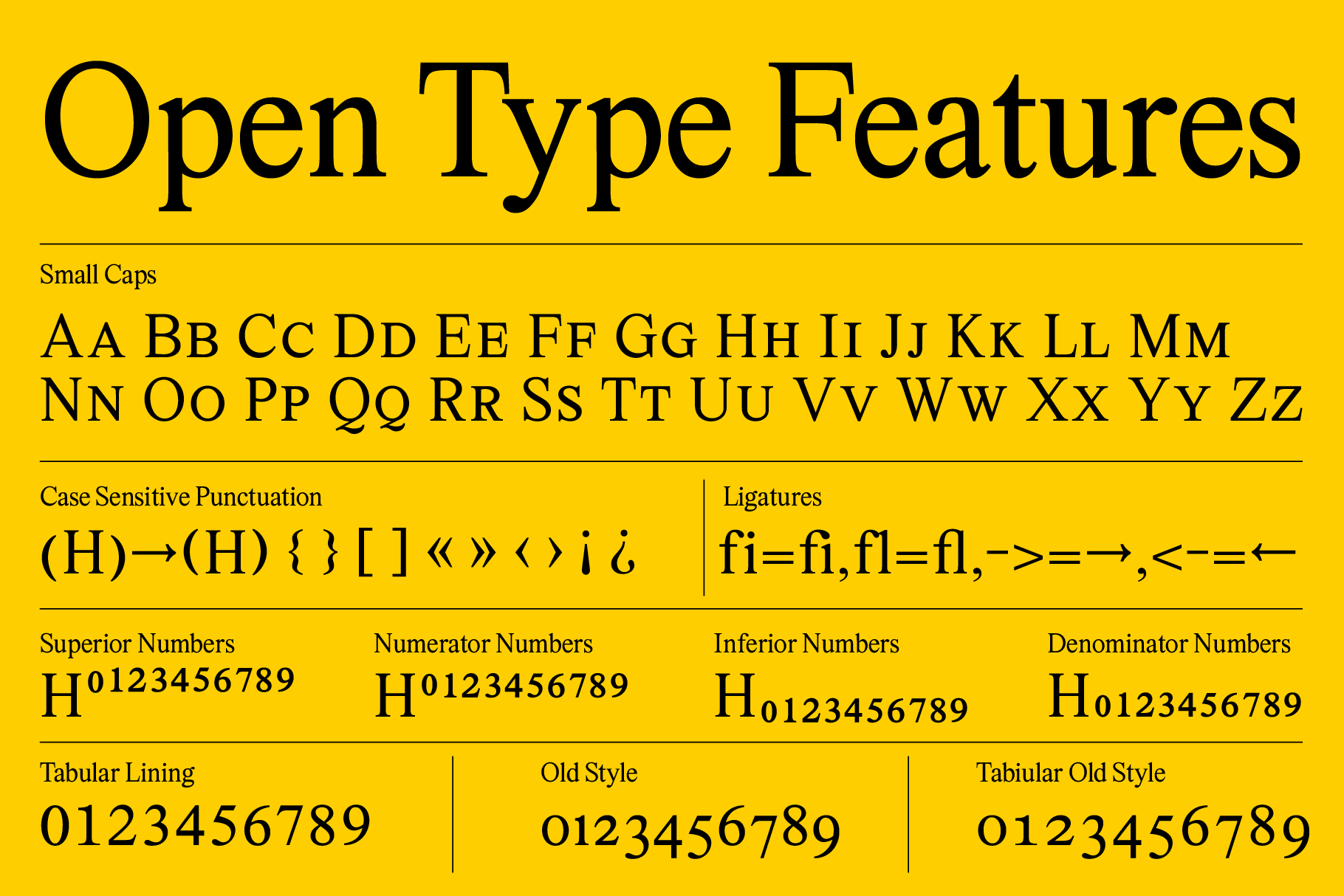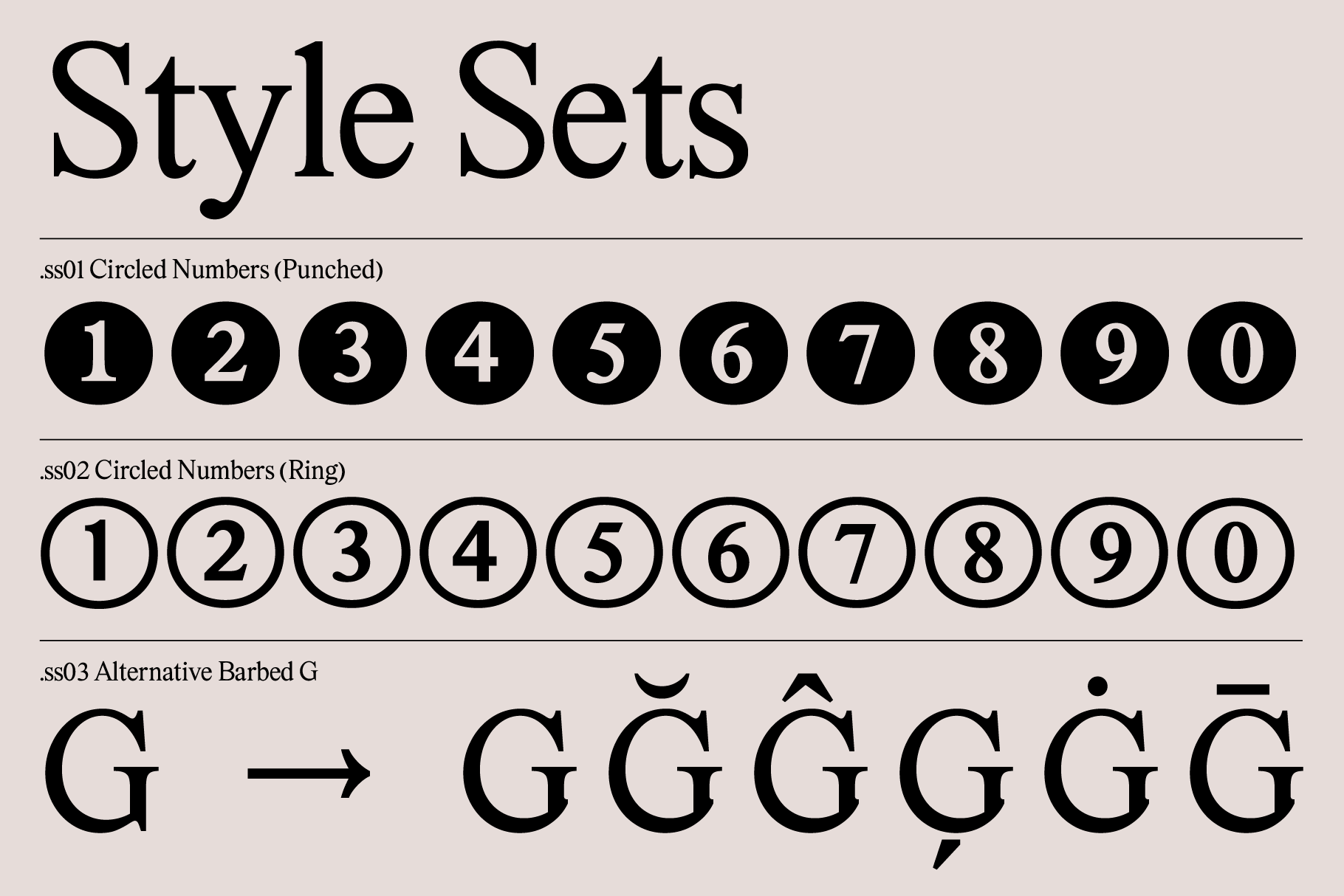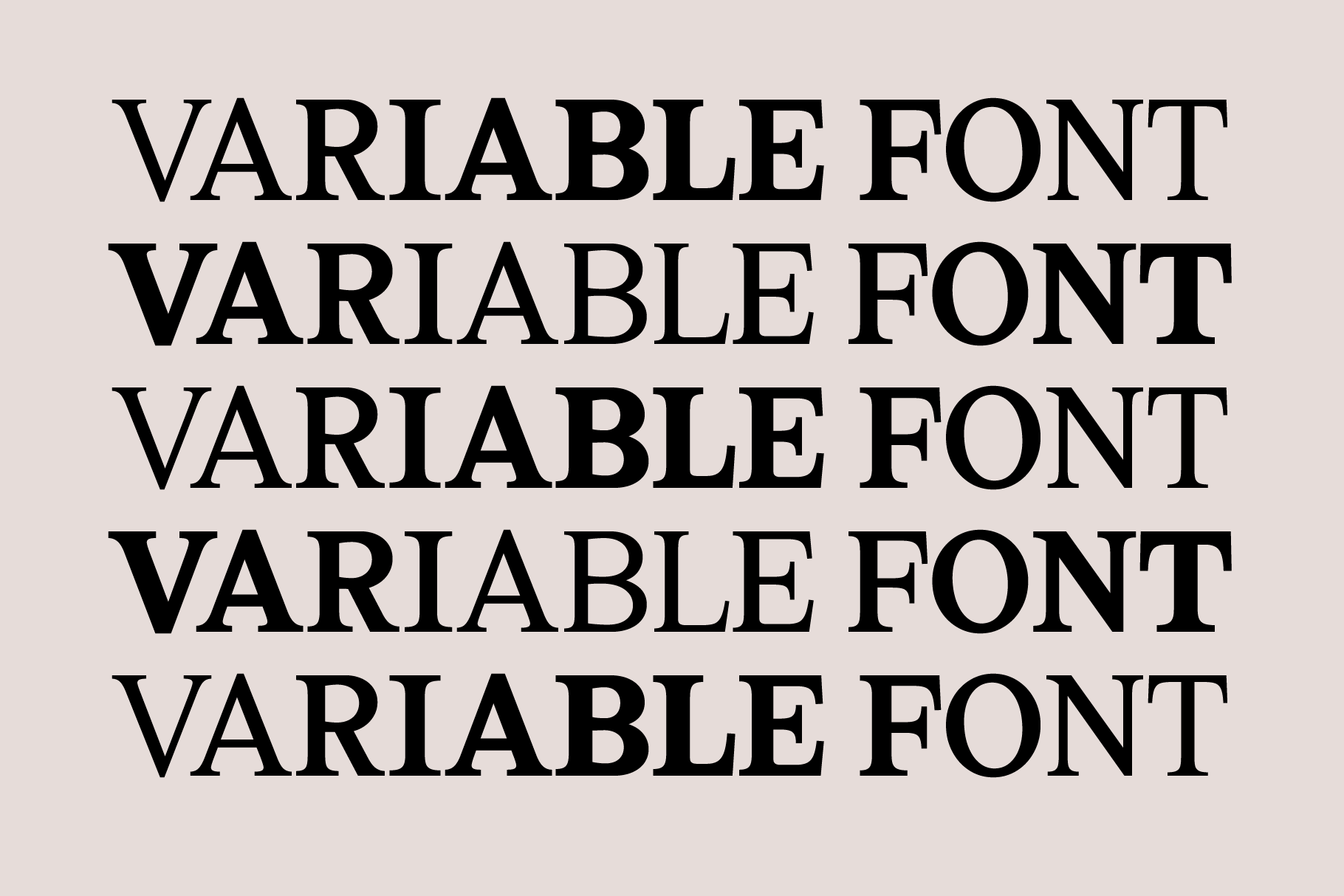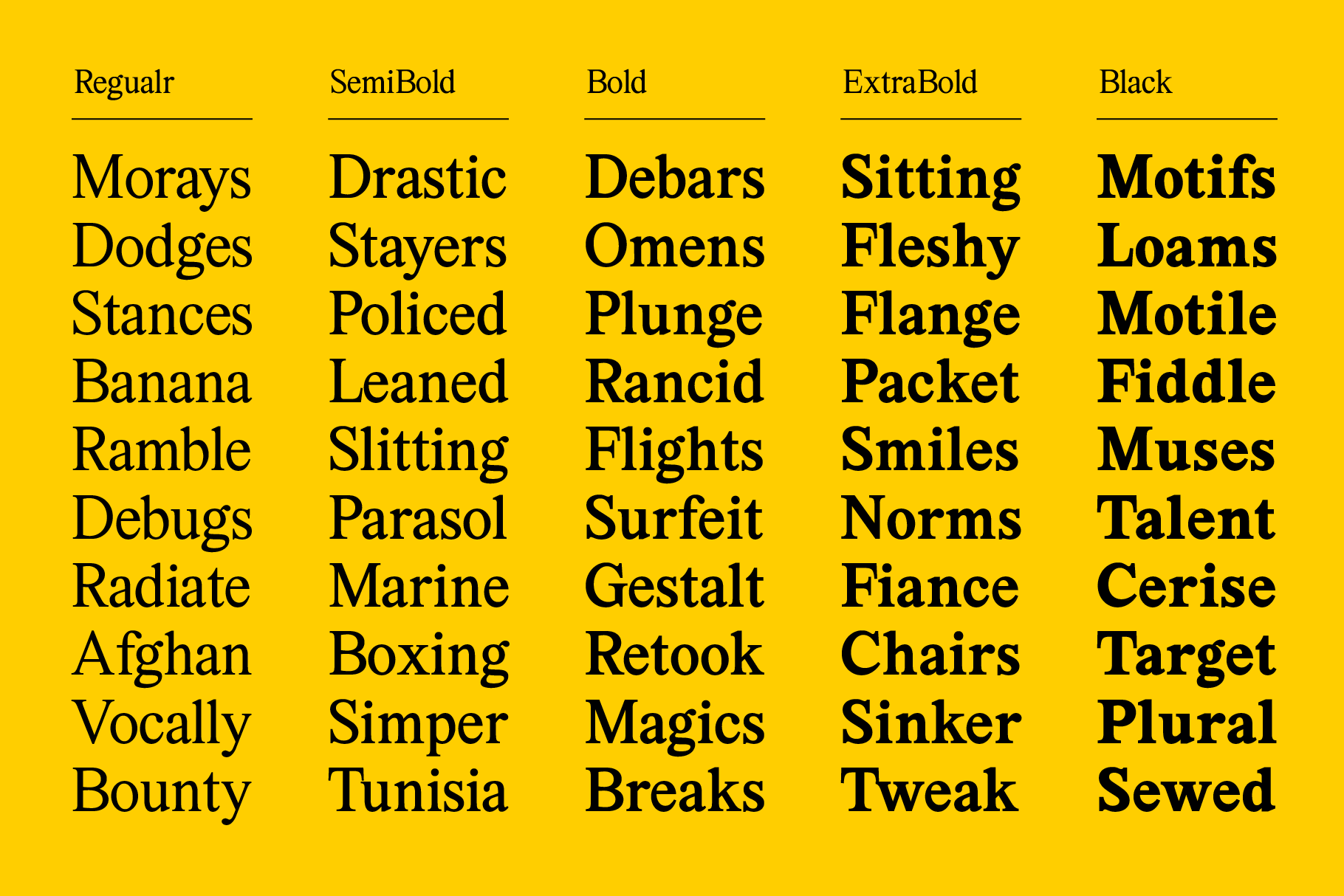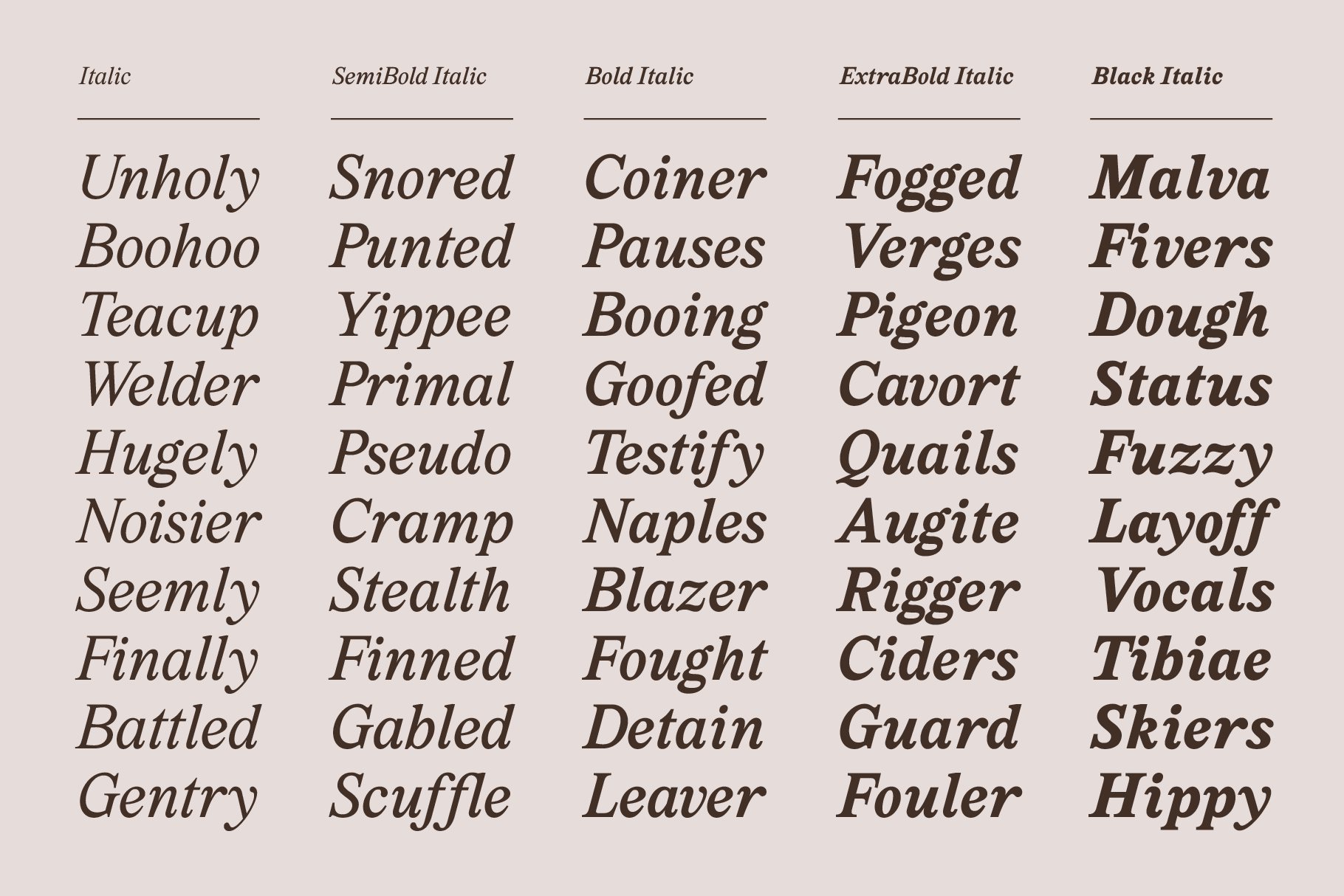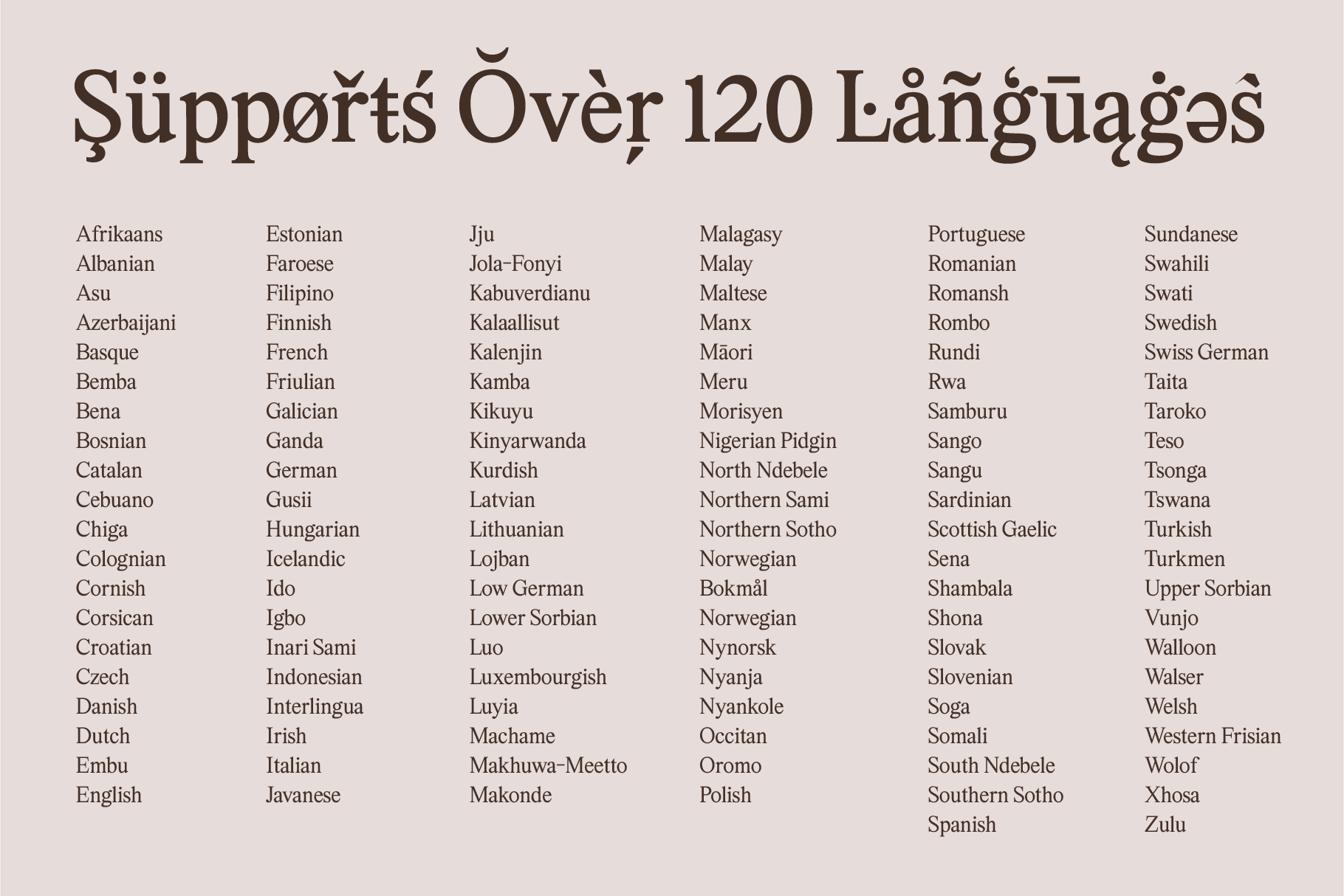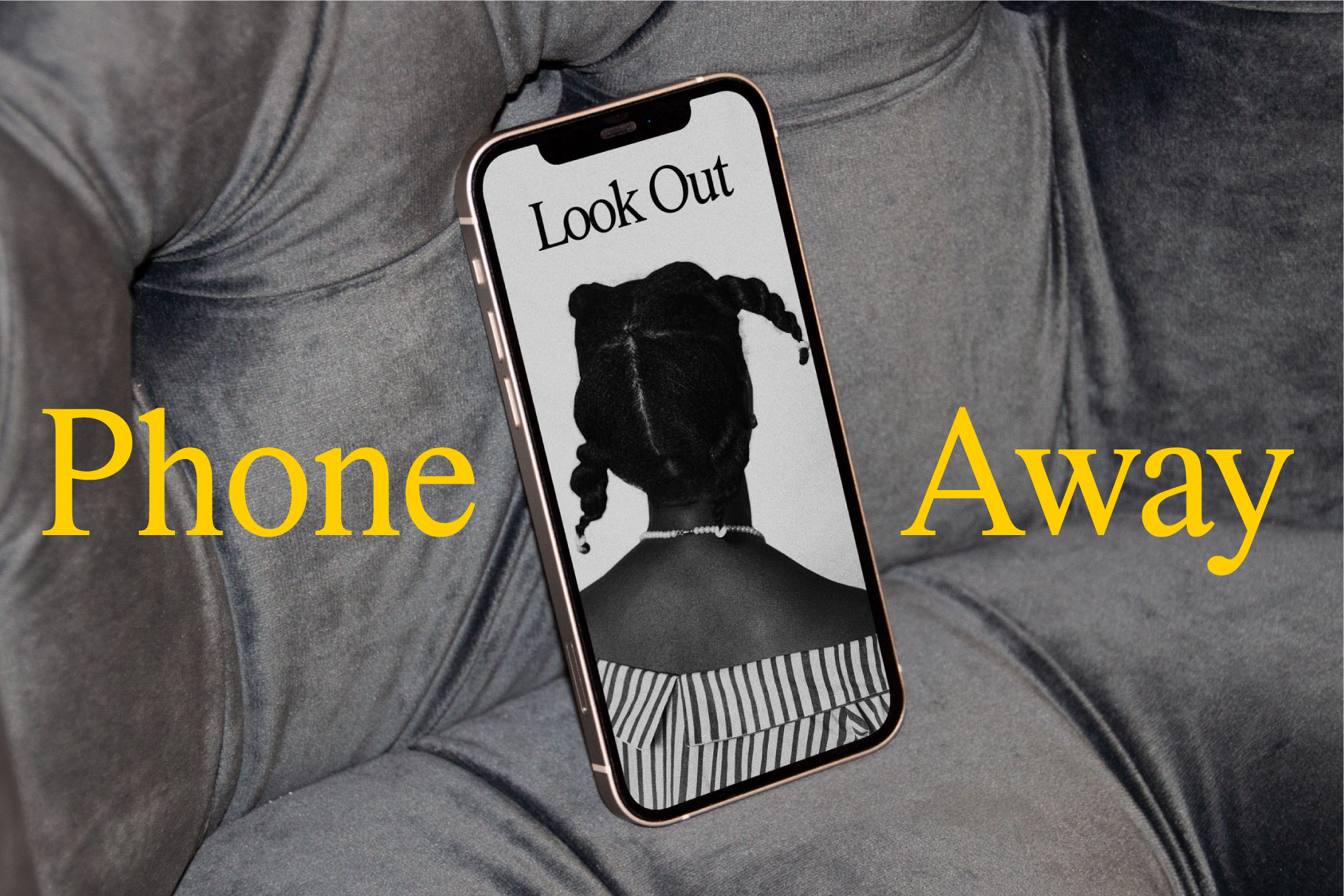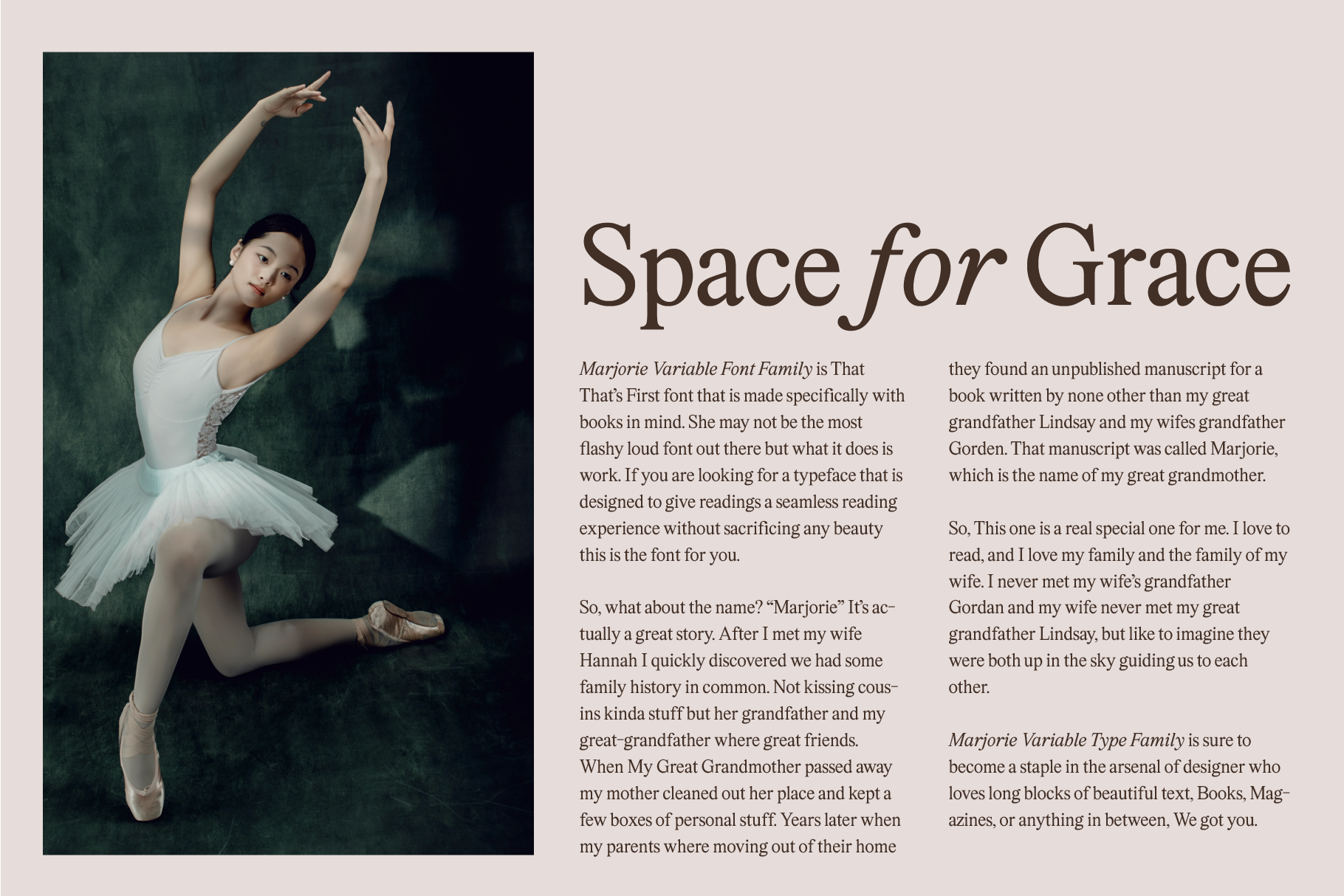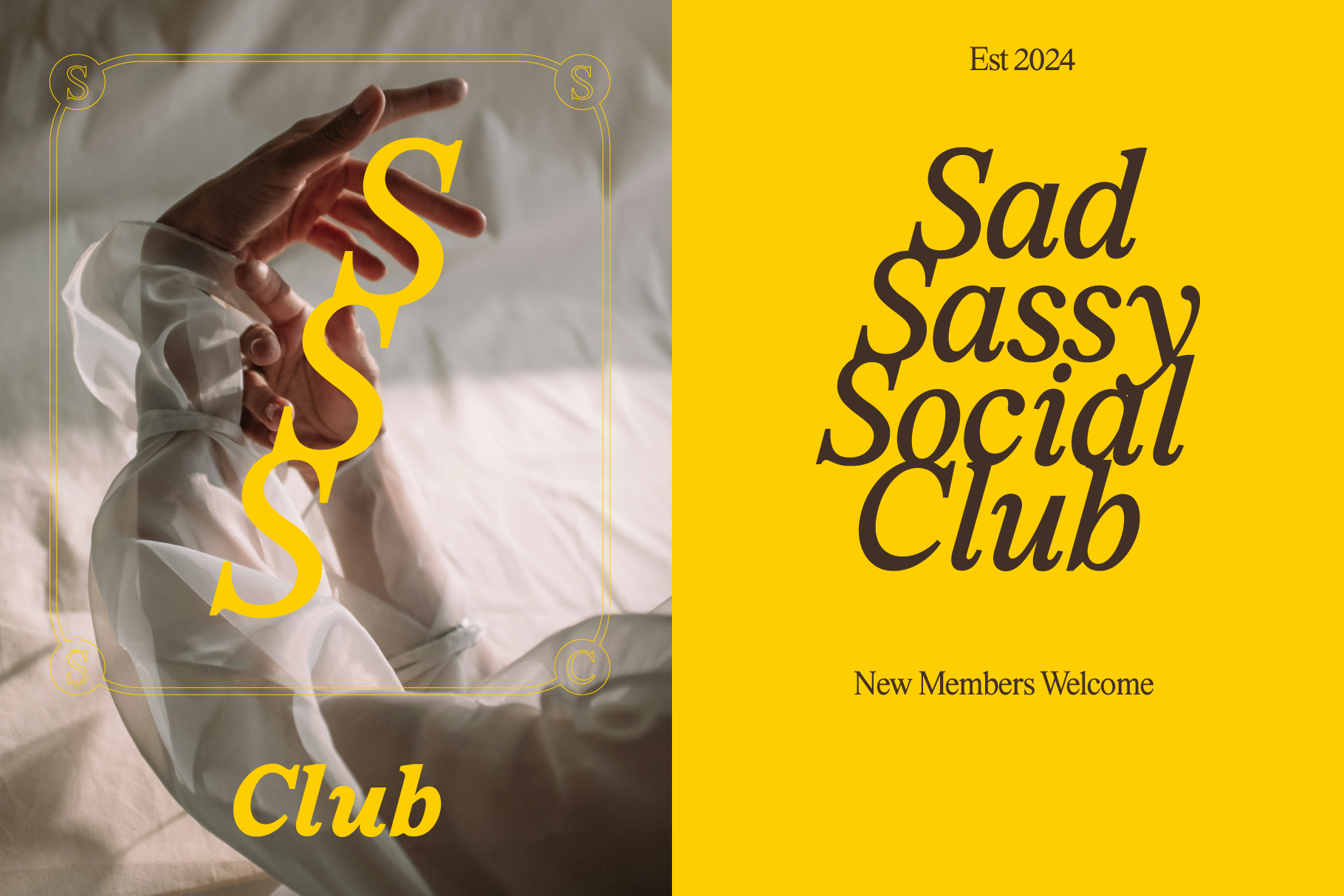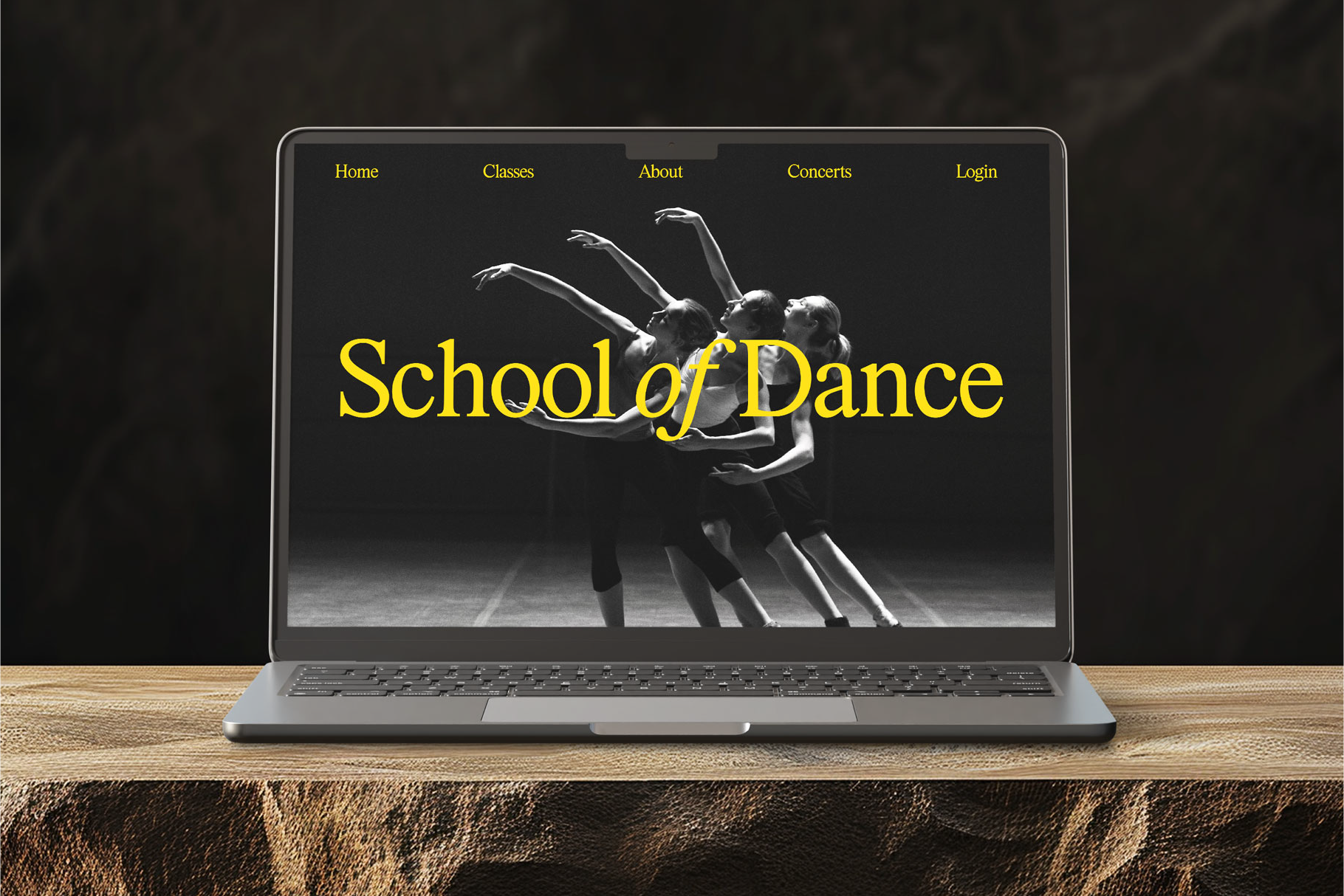
Marjorie Variable Family Collection
Marjorie Variable
Regular Italic SemiBold Italic Bold Bold Italic ExtraBold Italic Black Black ItalicThat That Type first started It was focused on creating Display Typeface. Now like all things we must evolve or DIE!!!! so with that overlay dramatic note. Her is Marjorie, That That’s first typeface made specifically for setting really long blocks of text. Marjorie is a subtle beauty with just enough personality to make you smile in the rare instances that you actually notice it. Mostly it just takes a back seat and lets you read without distraction.